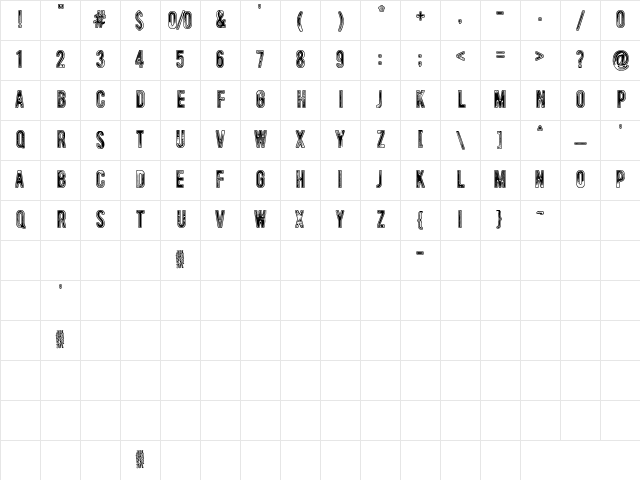
Universal Mind Regular Free Font
Universal Mind Regular
Designer: junkohanhero
Design Context for Universal Mind
Universal Mind is a composed and adaptable typeface that performs quietly and consistently across a wide range of design contexts.